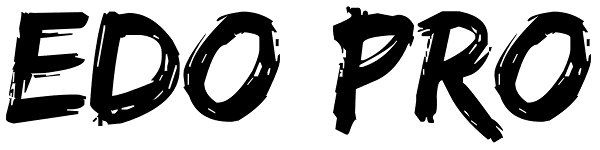
Edo Pro
A free-flowing brush script with only uppercase letters. Now with a professional and multilingual character set! Vic Fieger says: "The letters in Edo were hand-drawn using a thick black permanent marker with a flat head. The head was chopped up...